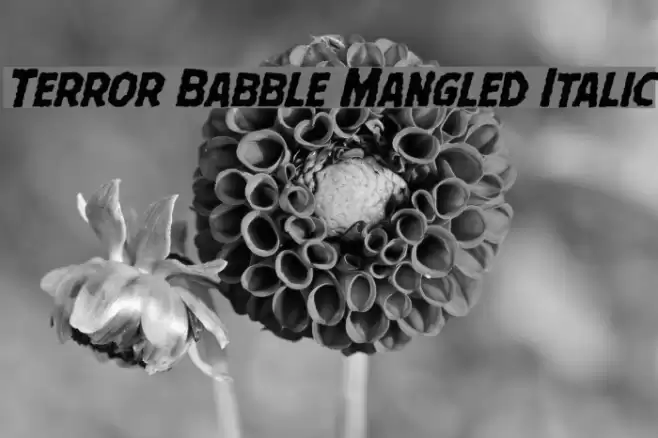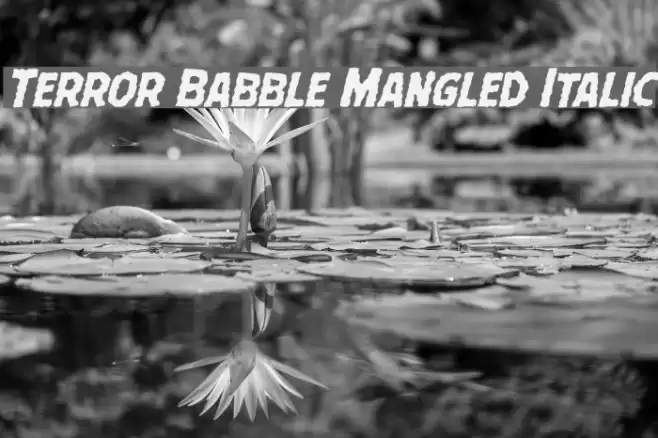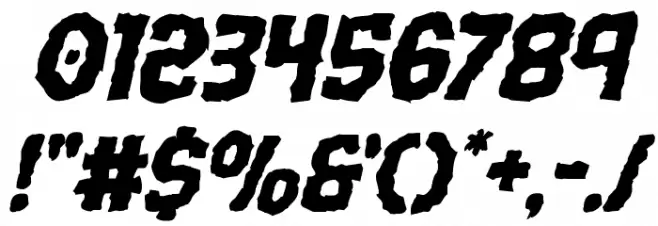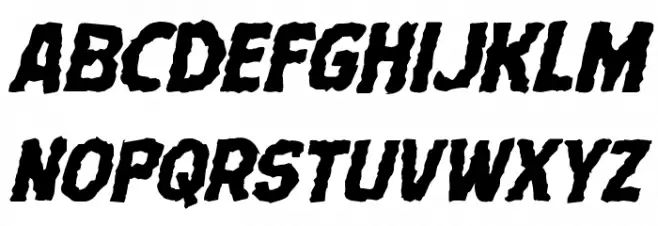
Terror Babble Mangled Italic Font
Terror Babble Mangled Italic Description
This font features a bold and dynamic style with a distinctly jagged and irregular appearance, reminiscent of torn paper or a chaotic brushstroke. The characters are heavily italicized, adding a sense of motion and urgency. The uppercase and lowercase letters maintain a consistent weight, contributing to a cohesive yet unpredictable aesthetic. The numbers and special characters follow the same design principles, ensuring uniformity across all glyphs. This font's unique and edgy style makes it stand out, ideal for projects requiring a dramatic and unconventional look.
A bold, jagged, and heavily italicized font with a chaotic, torn-paper aesthetic from Uncategorized fonts.
- Proposed Projects: Ideal for horror-themed posters, edgy album covers, or any design needing a dramatic flair.
- Use Case: Headlines, Posters, Logos